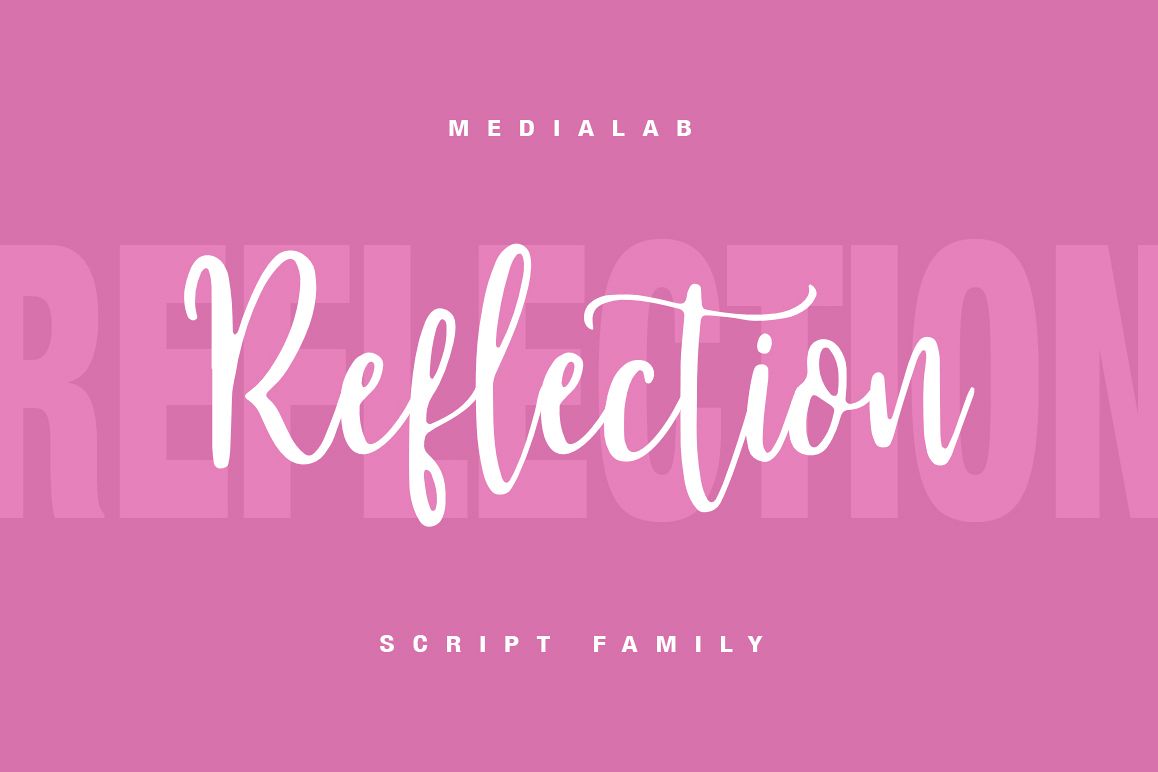
Reflection handwritten font family
I'd like to introduce you to Reflection Family. The happiest font do you'll ever meet :) They are completely in love with each other, and always get along like a house fire :)
Reflection Family consist of two lovingly handwritten fonts. Perfect for Type-based creations, branding, websites, merchandise, packaging, quotes, invites, greetings and so much more!